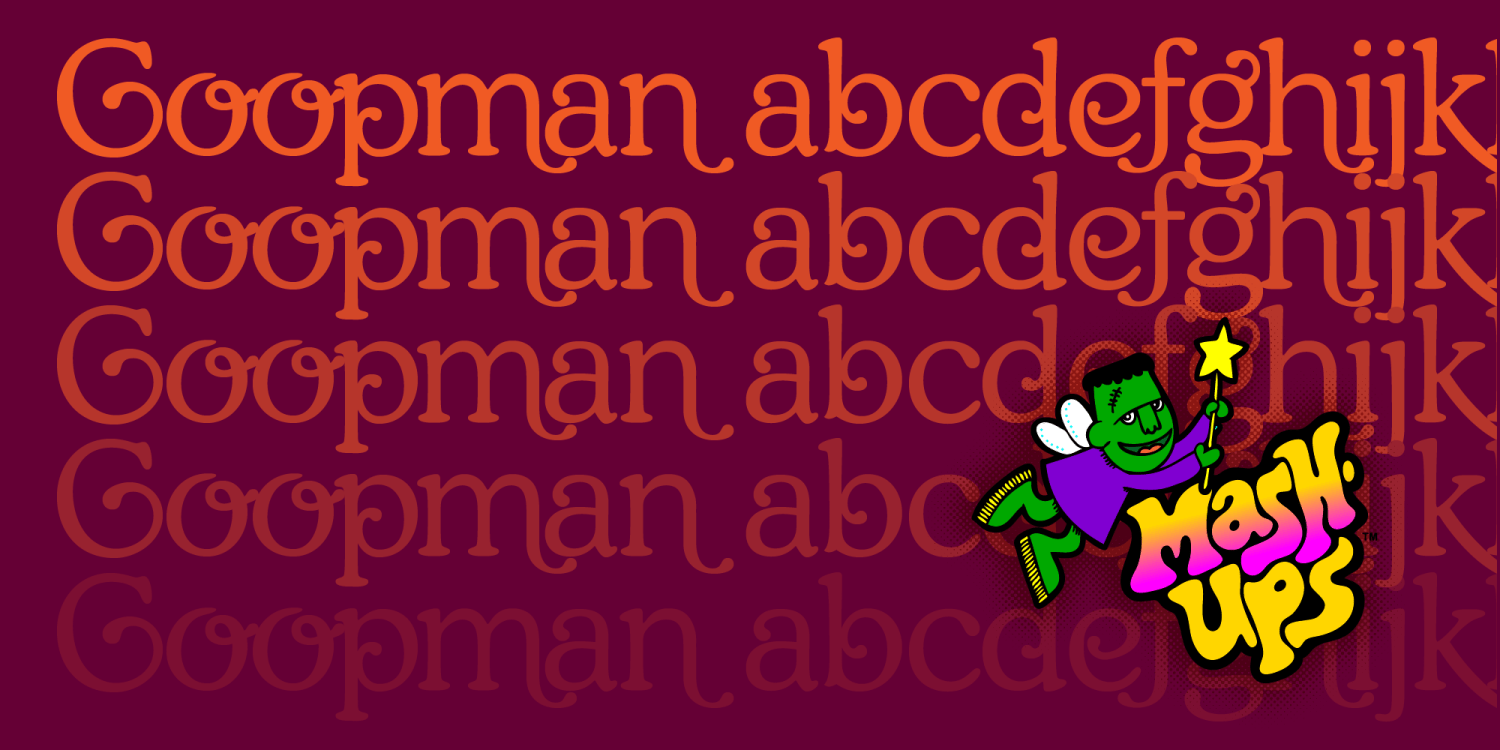
Hear ye, hear ye! Everyone loves the bold yet casual curves of Cooper, and nobody can resist the sexy swooshes of a 70's Bookman, so the only natural forward move was to put these two fonts alone in a candlelit room and see wait for the magic to happen. What happened was a delicious new typeface by the name of Coopman, the newest font in the Mashup Series.